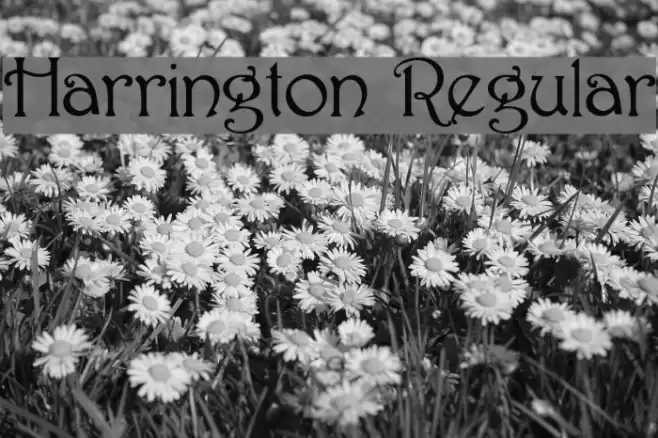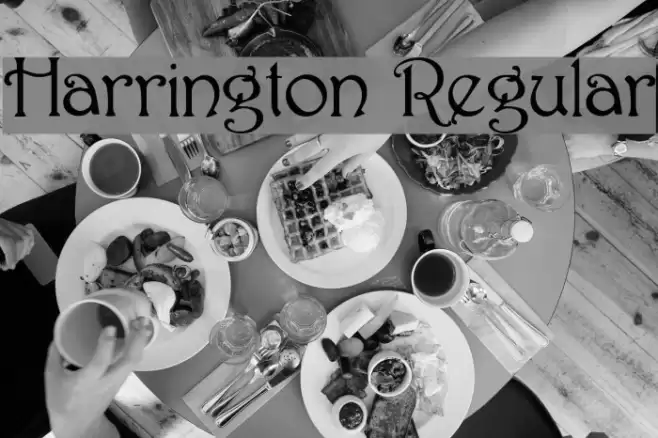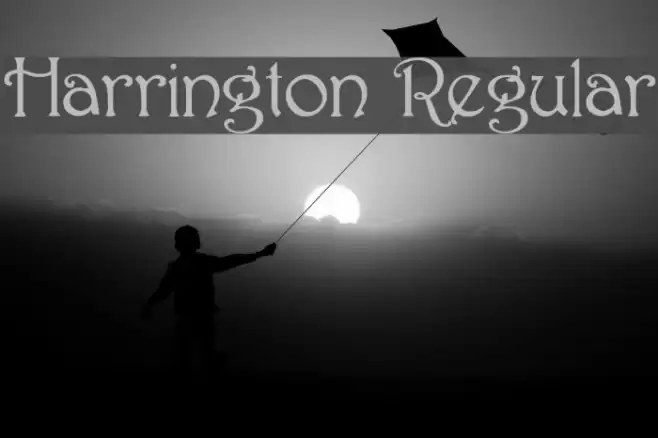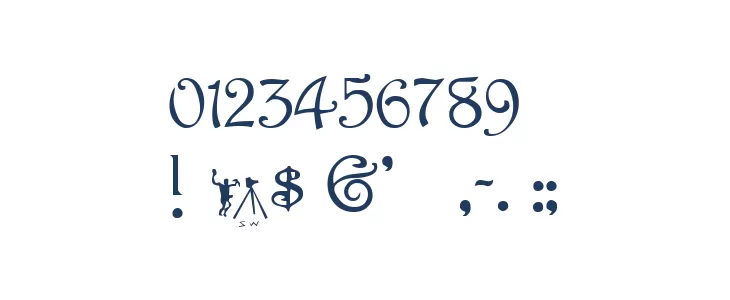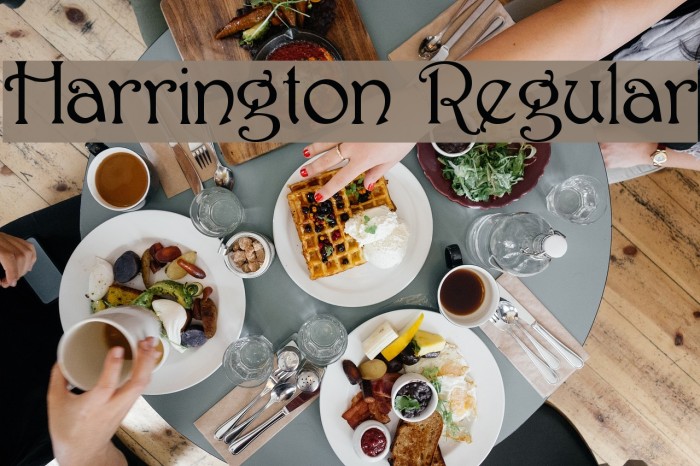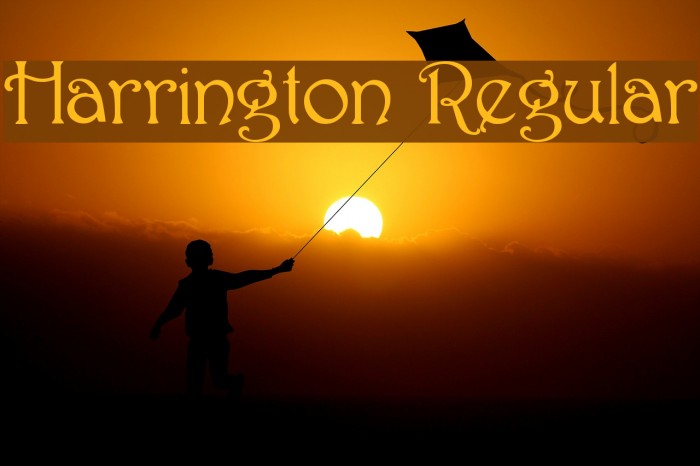
Harrington Regular Font
Harrington Regular Description
This font features an elegant and decorative style with a classic touch. The characters exhibit a unique blend of curves and sharp edges, creating a sophisticated and ornate appearance. The uppercase letters are particularly elaborate, with intricate serifs and flourishes that add a sense of grandeur. The lowercase letters maintain a consistent style, with smooth curves and a slightly whimsical feel. Numbers and special characters are designed to match the overall aesthetic, ensuring a cohesive look across all text. This font is well-suited for projects that require a touch of elegance and formality.
An elegant and decorative font with classic, ornate features from Uncategorized fonts.
- Proposed Projects: Ideal for wedding invitations, formal event programs, luxury branding, and decorative headings.
- Overall Style: Classic, Decorative
- Use Case: Headlines, Logos, Invitations